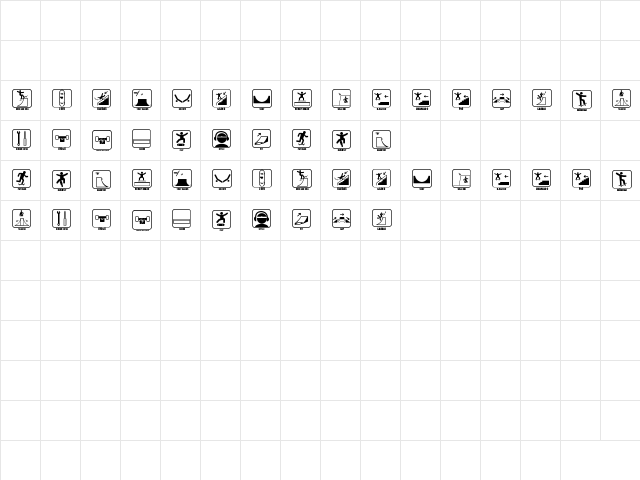
ICONOS SKATE Regular
Design Context for ICONOS SKATE Typeface
ICONOS SKATE is a composed and adaptable typeface that performs quietly and consistently across a wide range of design contexts.